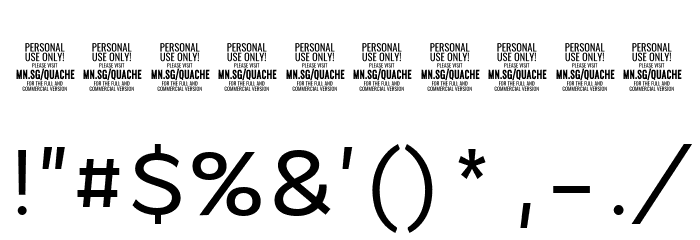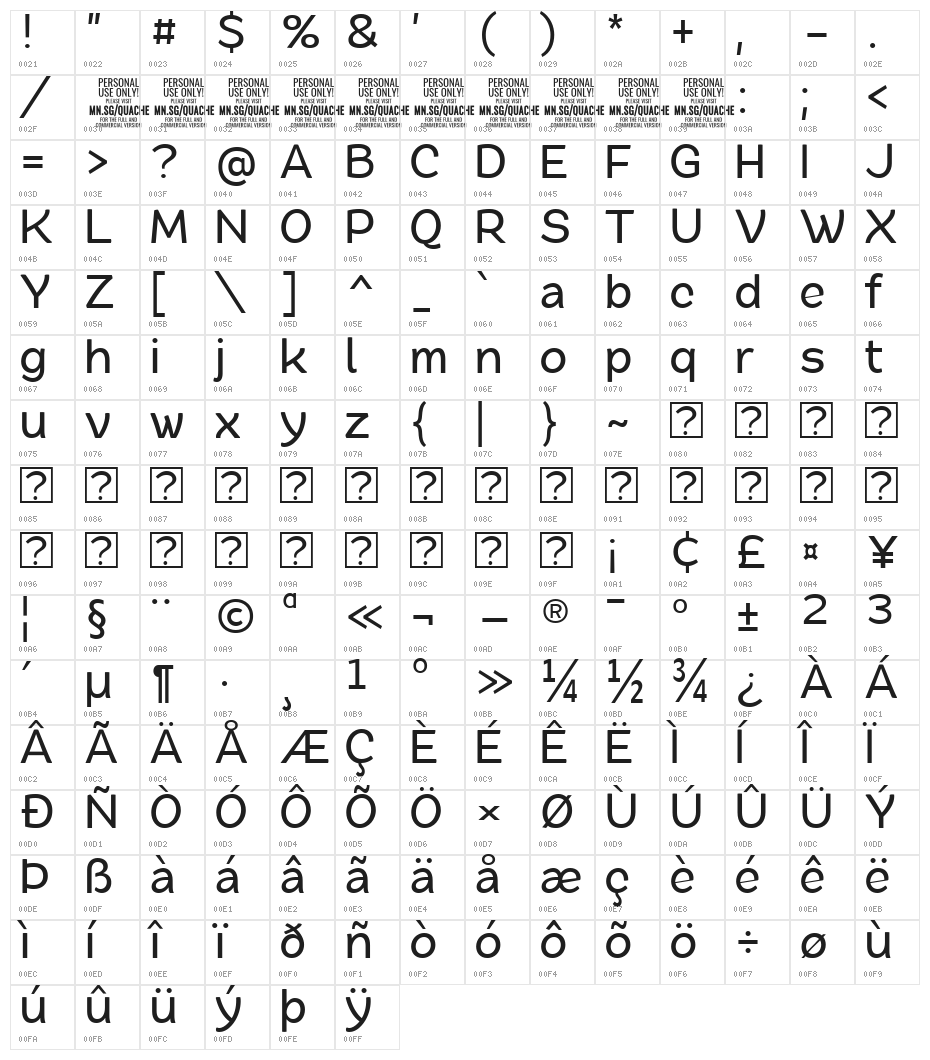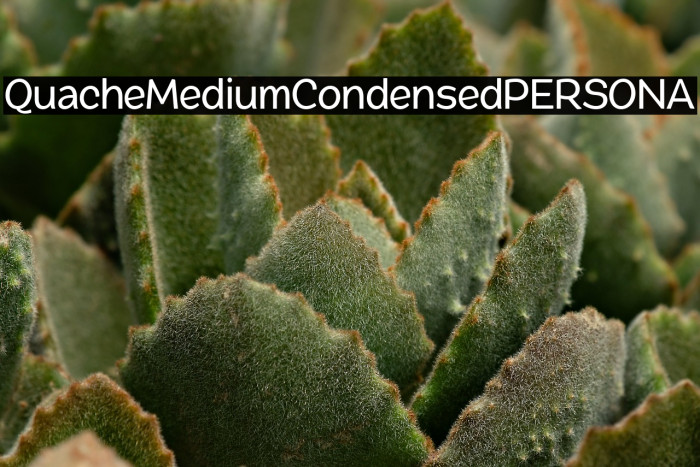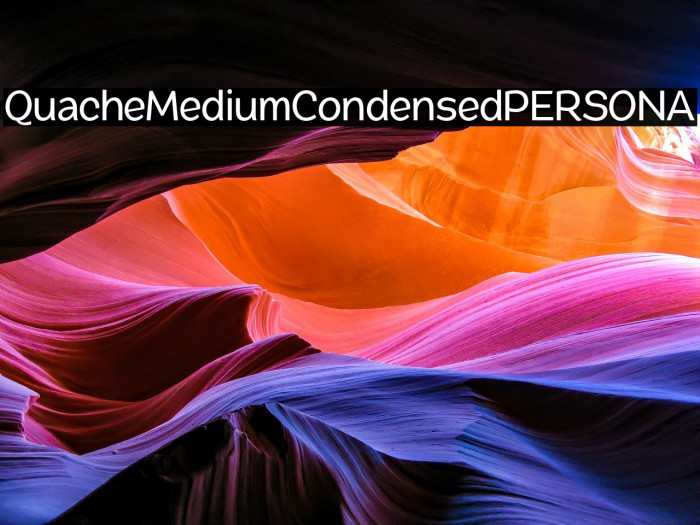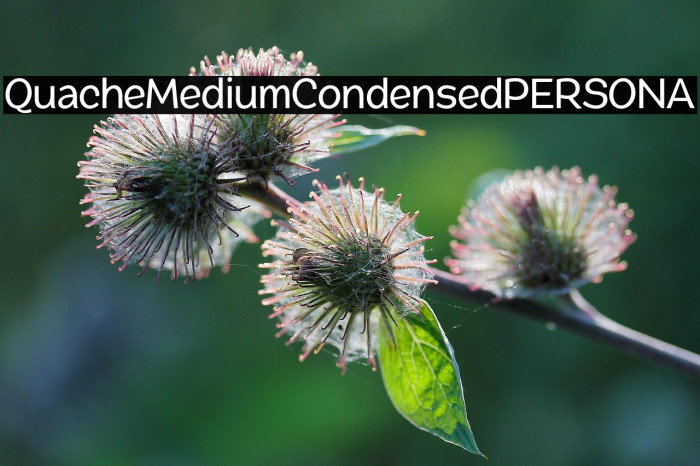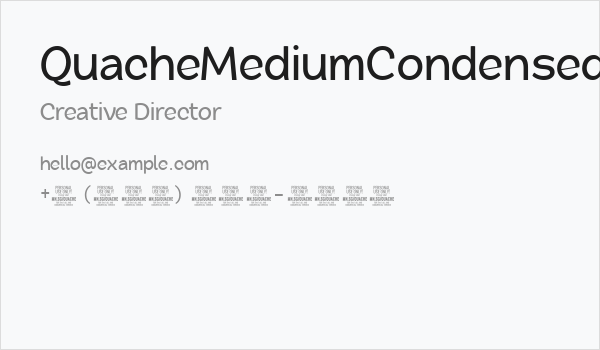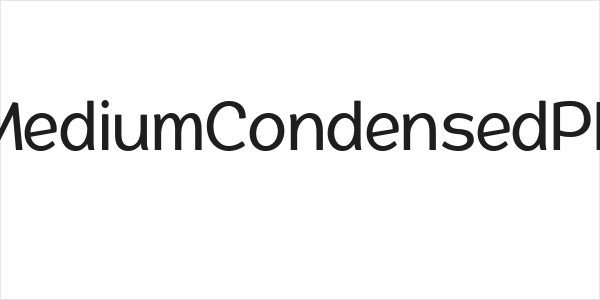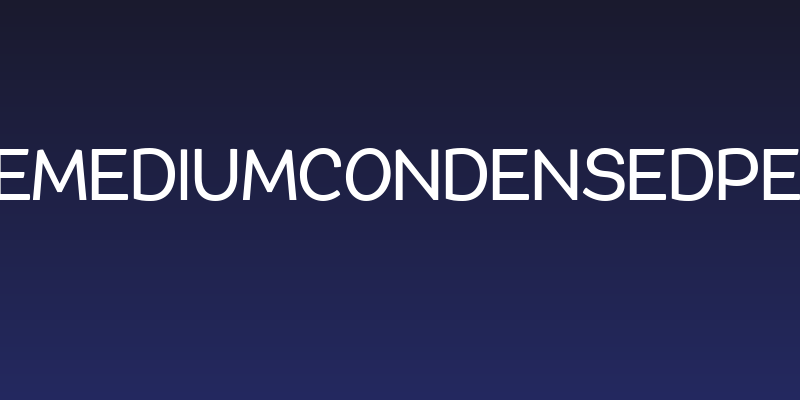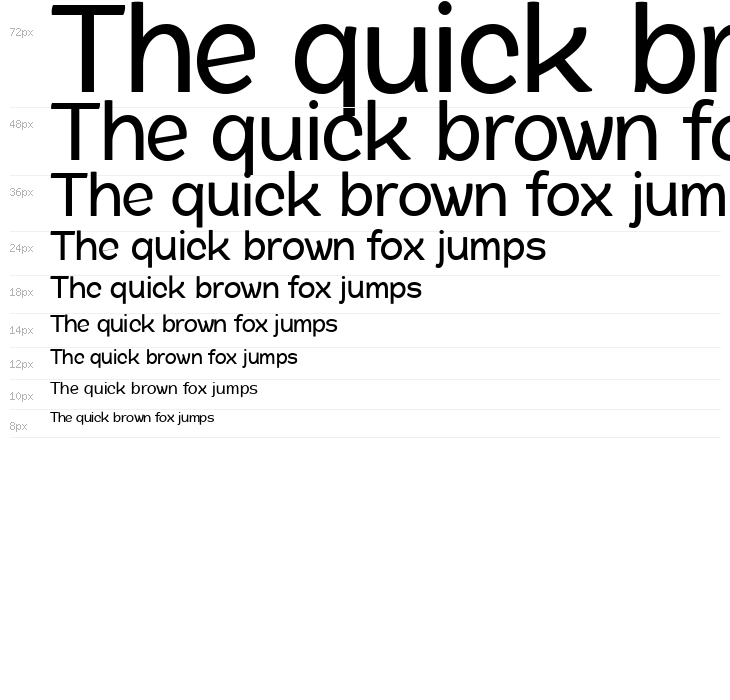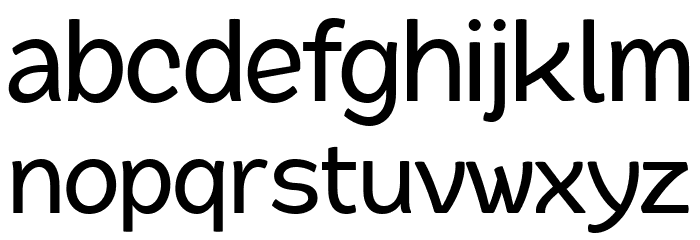
QuacheMediumCondensedPERSONA Font
QuacheMediumCondensedPERSONA Description
This font features a clean and modern sans-serif style with a condensed width, making it suitable for space-saving designs. The characters are uniform and well-balanced, with a consistent stroke width that provides a sleek and professional appearance. The uppercase and lowercase letters are distinct yet harmonious, ensuring readability across various applications. The numerals and special characters maintain the same design ethos, offering versatility for different uses. This font's simplicity and clarity make it ideal for contemporary design projects.